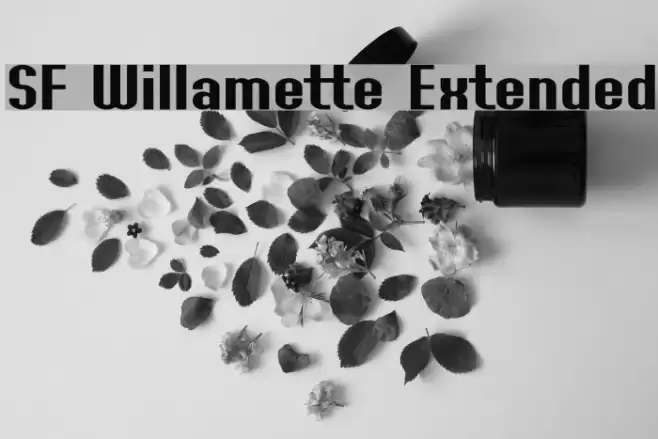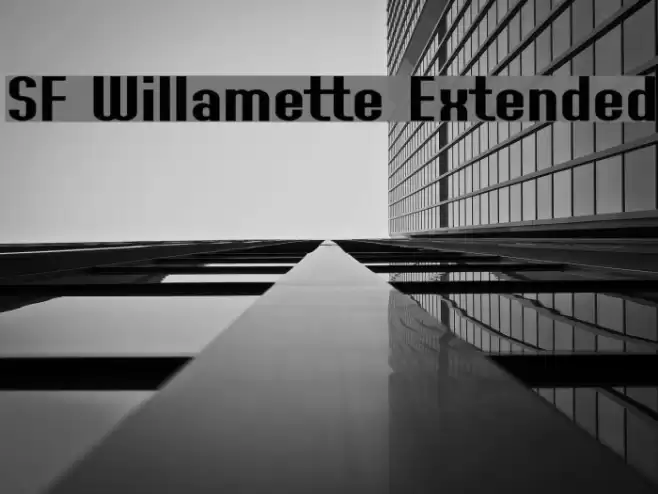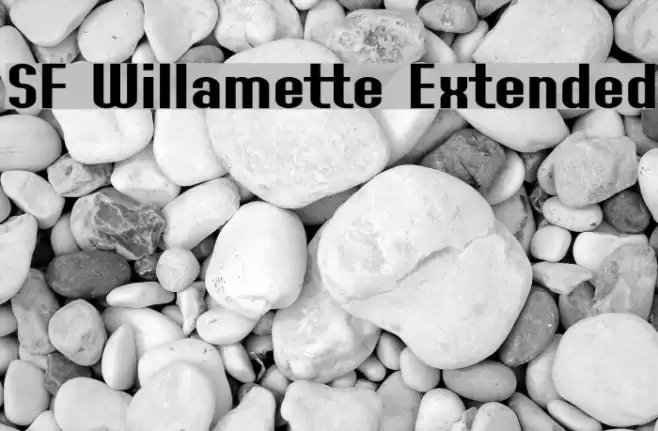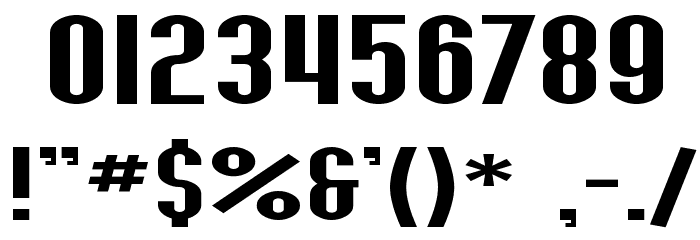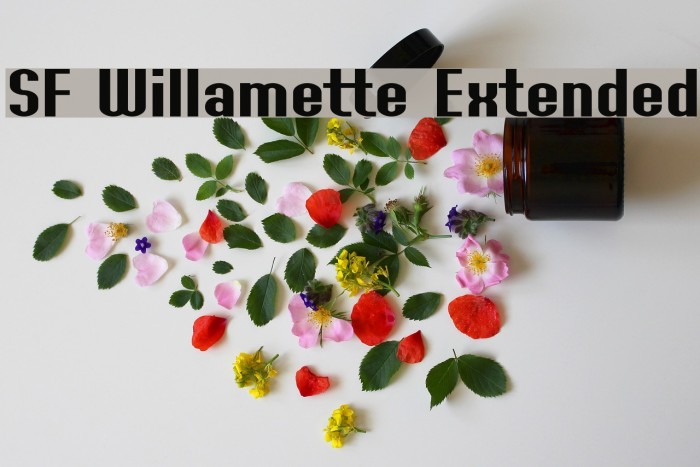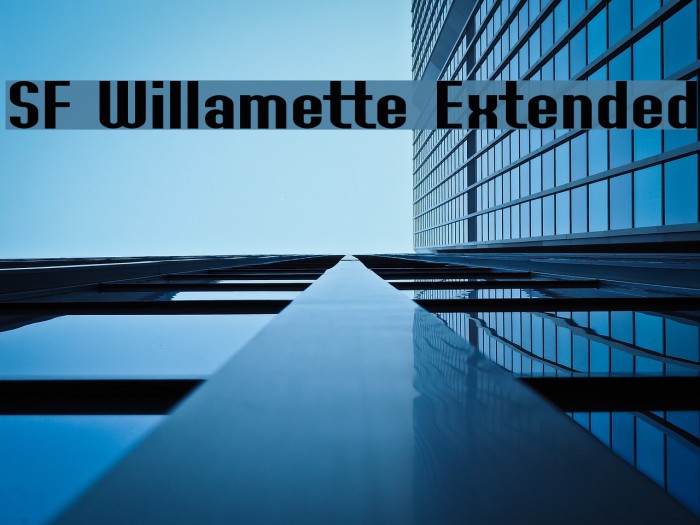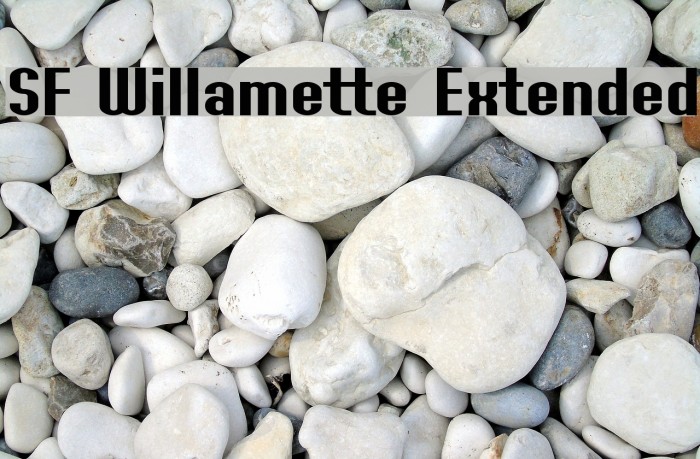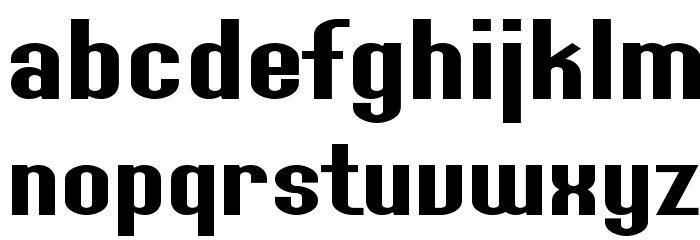
SF Willamette Extended Font
SF Willamette Extended Description
This font features a bold and extended style with a strong presence, making it ideal for impactful headlines and attention-grabbing designs. The uppercase letters are tall and commanding, while the lowercase letters maintain a consistent width, contributing to a cohesive look. The numerals are clear and easy to read, complementing the overall robust design. Special characters are well-defined, adding versatility to the font's usage. The extended width of the characters provides a modern and dynamic feel, suitable for various creative projects.
A bold, extended font ideal for impactful headlines and modern designs from Sans Serif fonts.
- Proposed Projects: Perfect for branding, posters, advertising, and any project requiring a strong visual impact.
- Width: Expanded